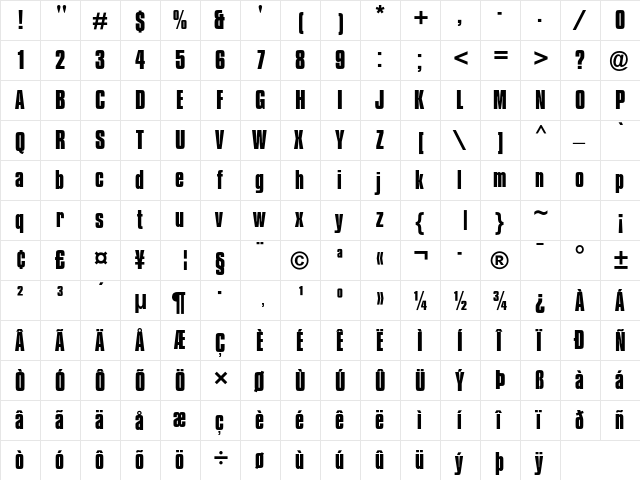
Compacta MT Std Bold
Design Context for Compacta MT Std Typeface
Compacta MT Std offers clean, dependable letterforms without strong stylistic allegiance, making it a practical choice for designers who need flexibility. The heavy weight commands attention and anchors typographic hierarchies. Its narrow stance lets it pack a punch even in space-constrained designs.